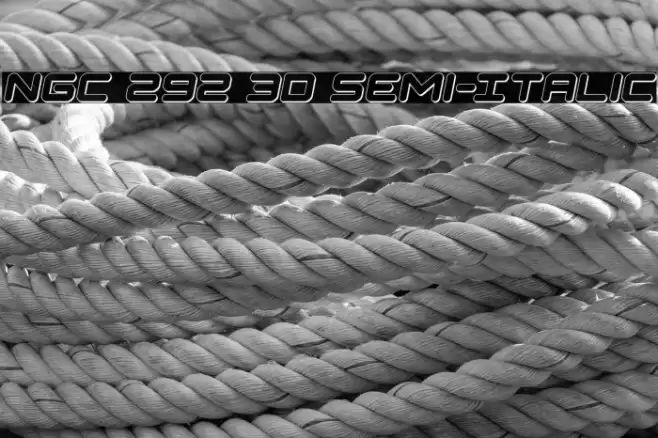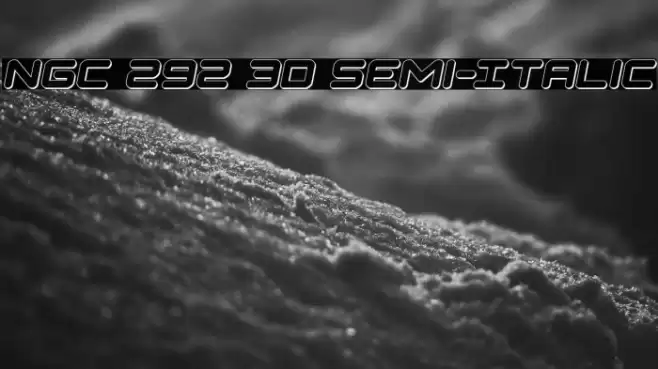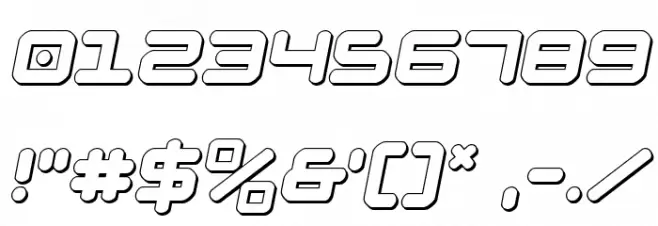
NGC 292 3D Semi-Italic Font
NGC 292 3D Semi-Italic Description
This font features a bold, futuristic design with a semi-italic slant, giving it a dynamic and modern appearance. The characters are outlined, creating a 3D effect that adds depth and dimension. The geometric shapes and clean lines make it suitable for technology-themed projects. The uppercase and lowercase letters maintain a consistent style, with rounded edges and a uniform stroke width. The numerals and special characters are designed to match the overall aesthetic, ensuring visual harmony across all elements.
A bold, futuristic font with a semi-italic slant and 3D outline effect from Uncategorized fonts.
- Proposed Projects: Ideal for technology branding, video game titles, sci-fi posters, and digital interfaces.